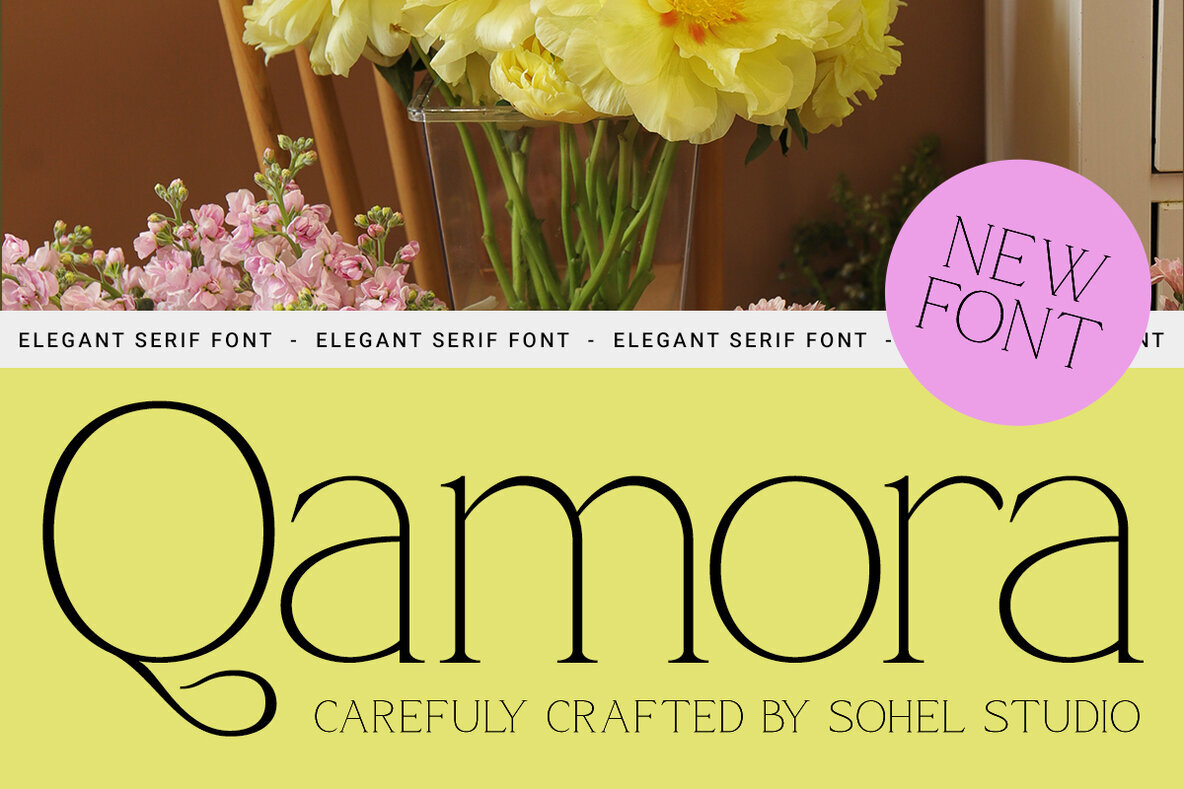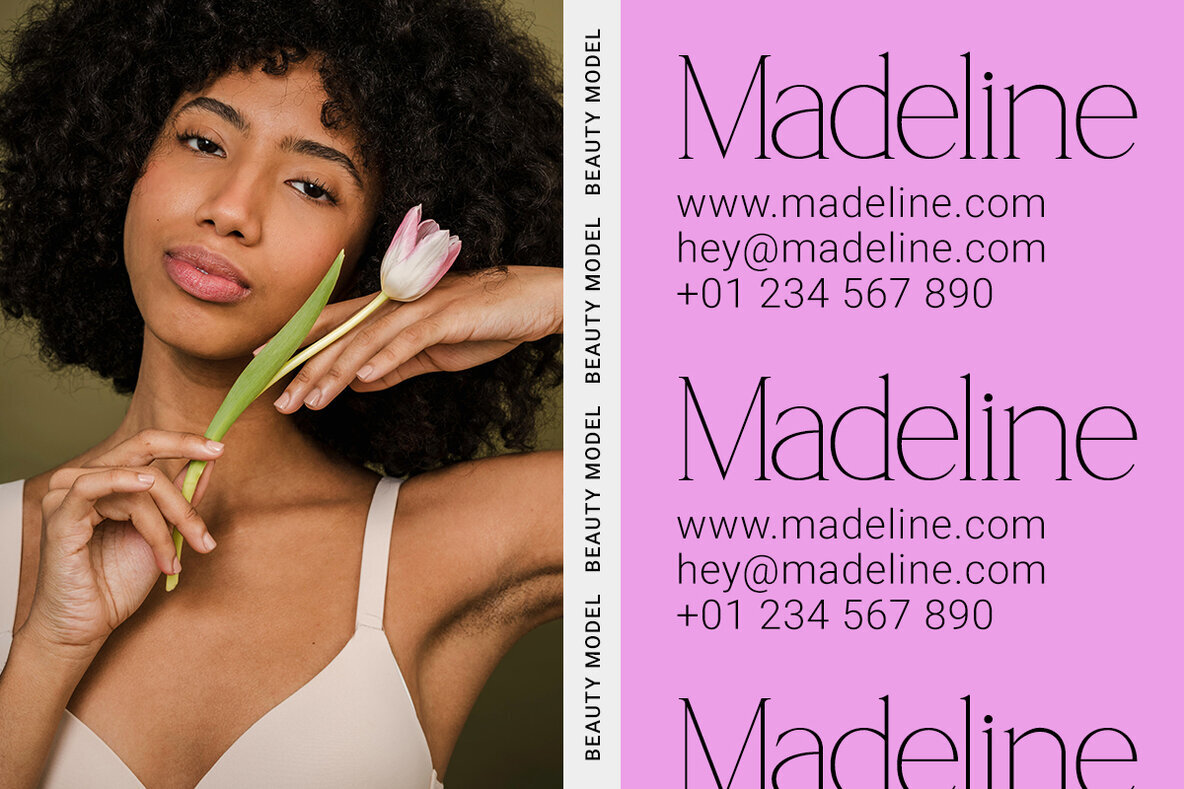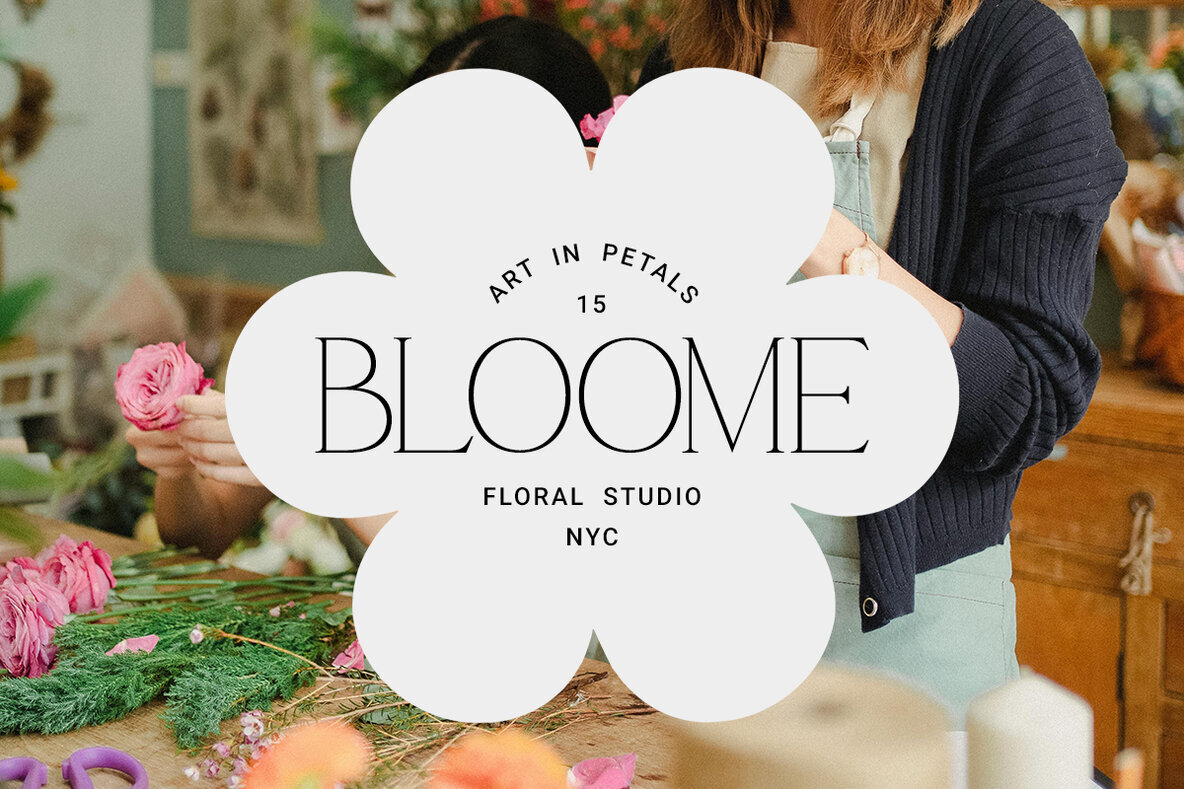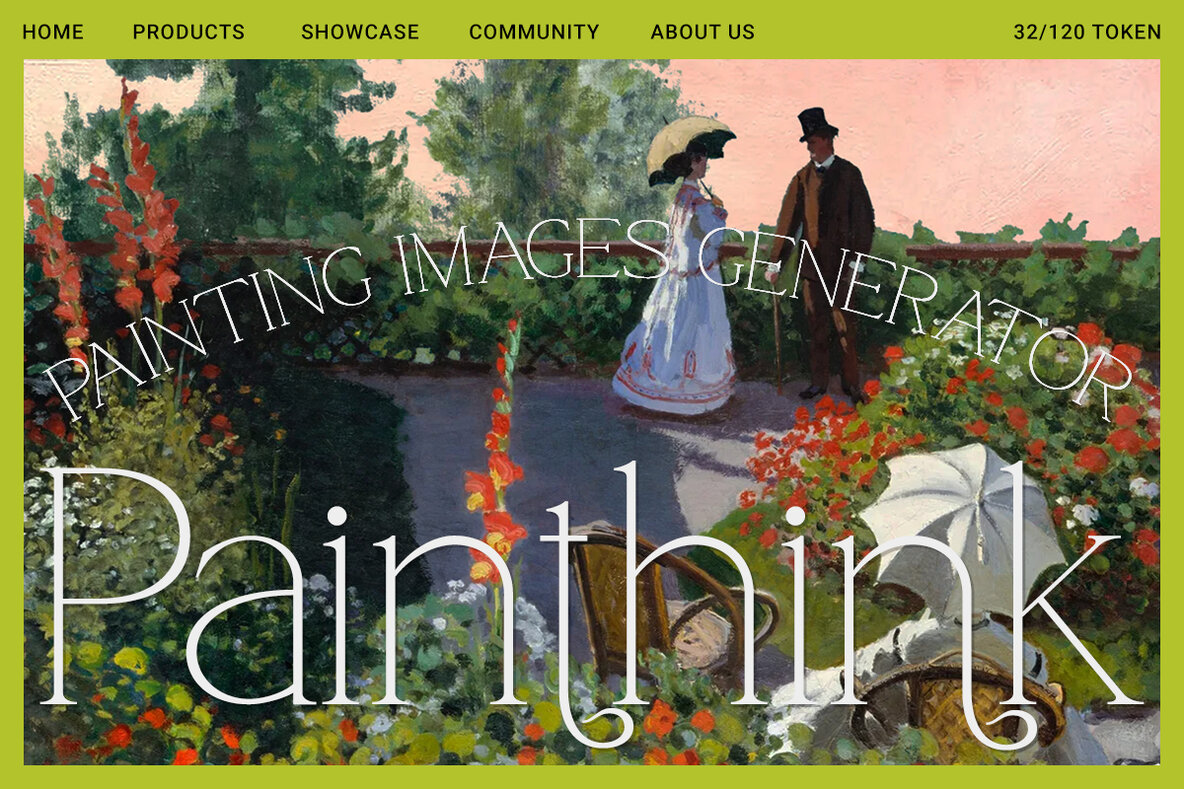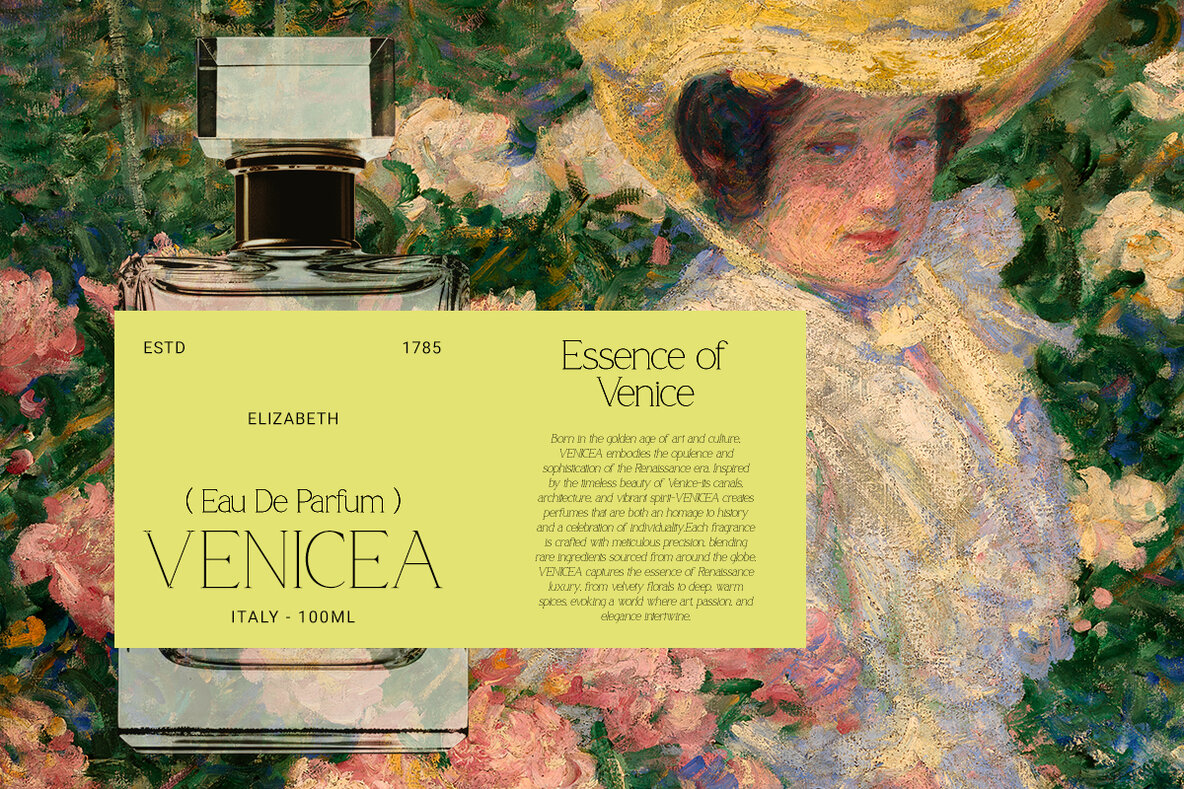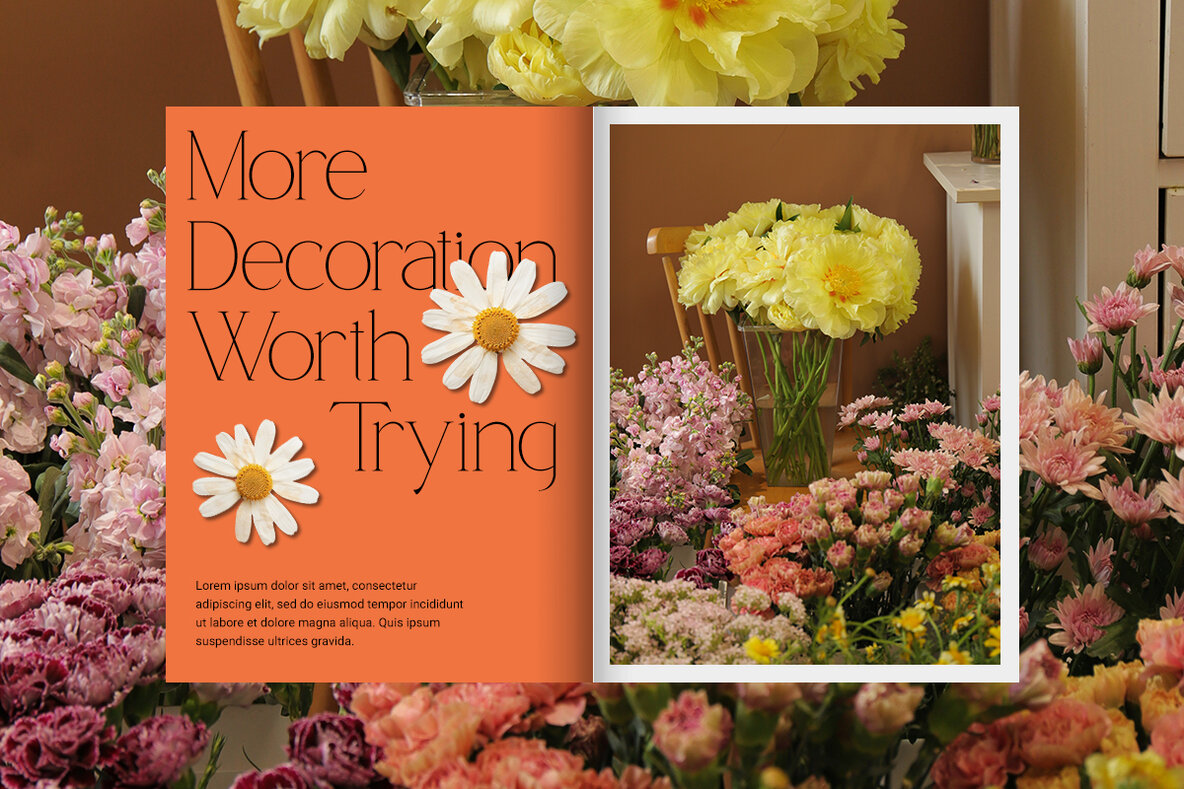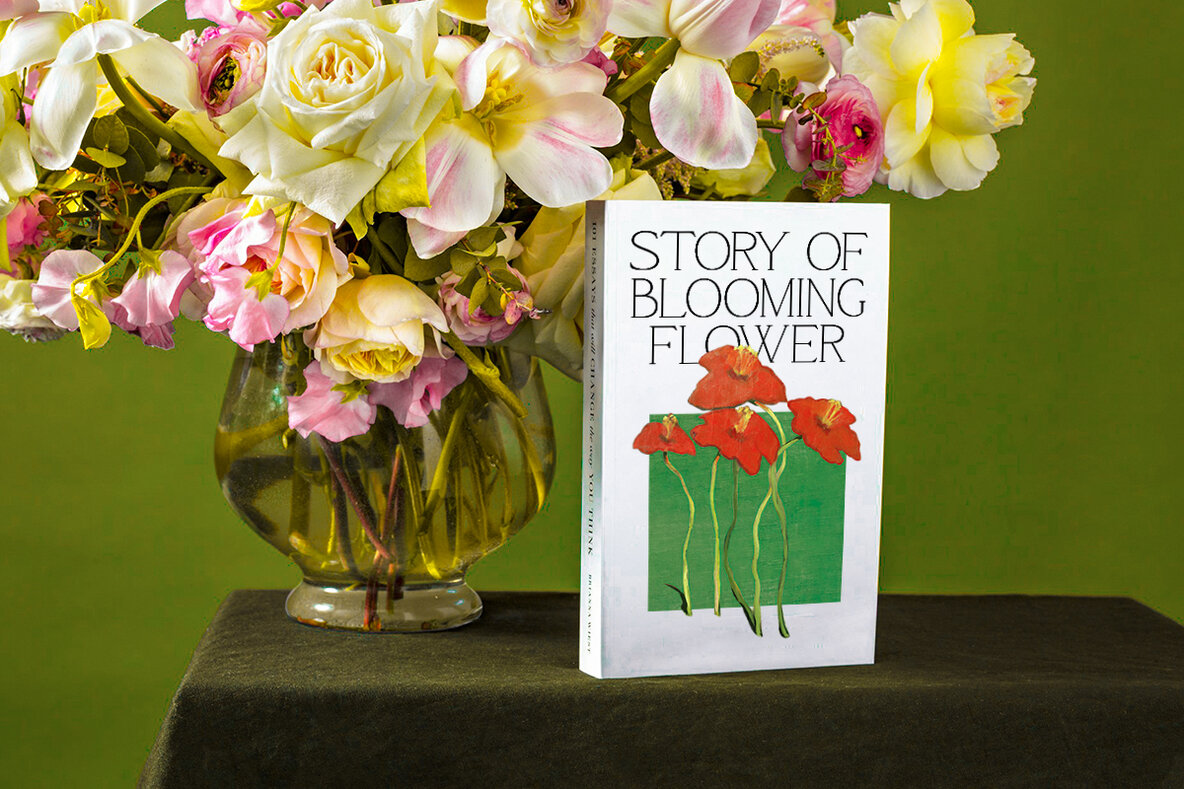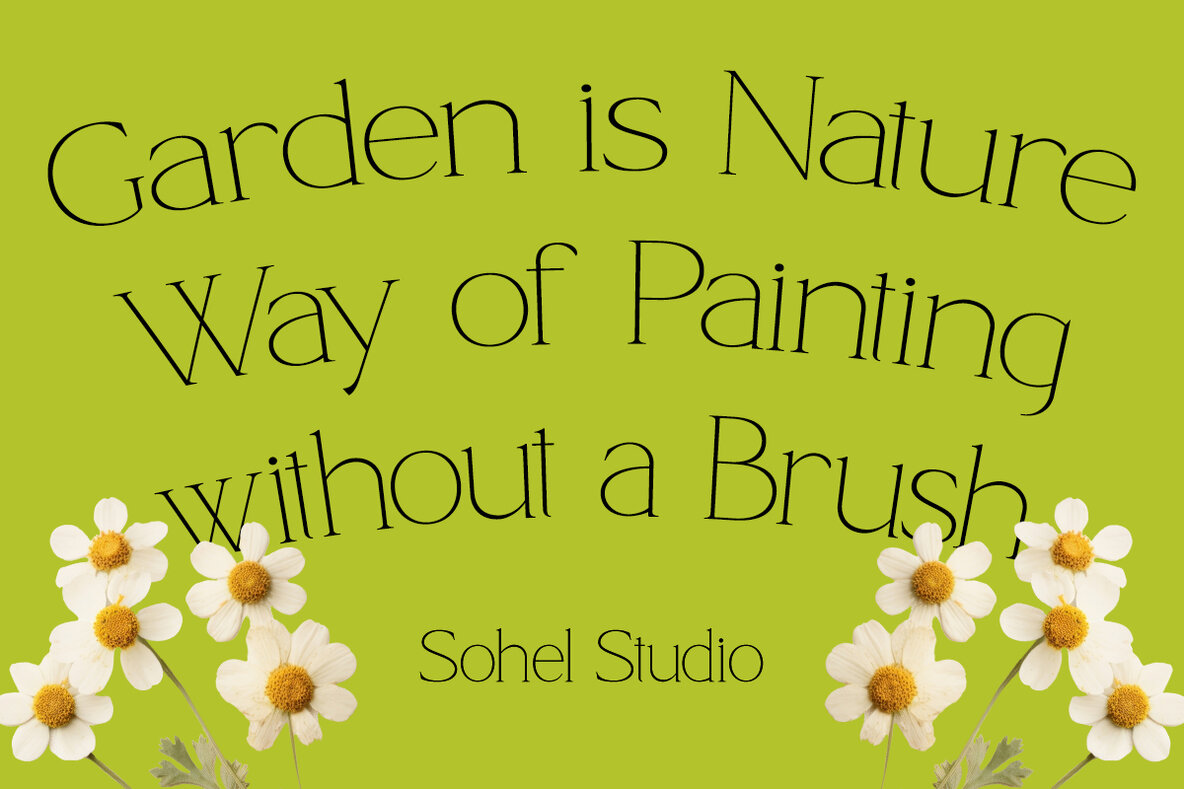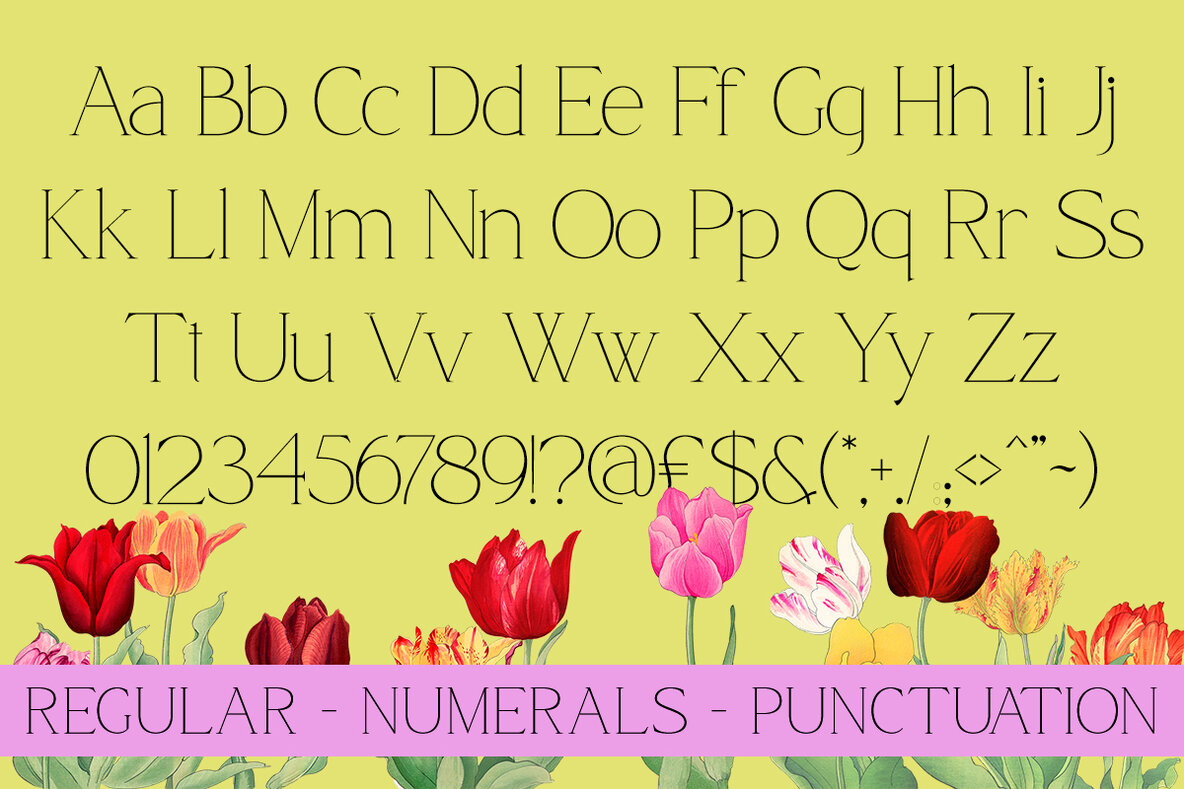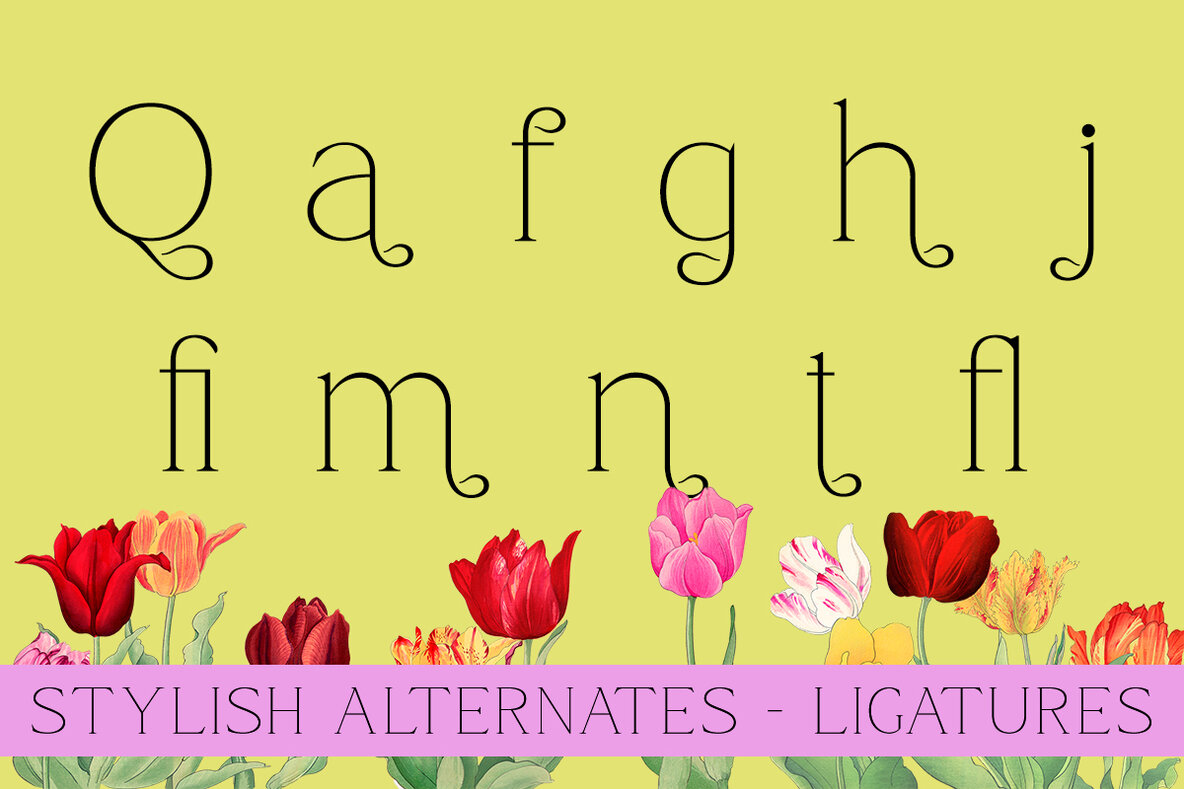
Qamora is a serif typeface that exudes quiet confidence through its precise design, where ultra-fine contrast meets distinct elegance. Its refined letterforms blend softness with structure, creating a contemporary and unmistakably feminine voice suitable for visual identities that embrace elegance. Qamora is ideal for high-end skincare, boutique fashion labels, and lifestyle brands, seamlessly merging minimalism with modern editorial aesthetics. Each letter in Qamora is crafted with intent. The extended stems and high-waist letterforms evoke tailored craftsmanship, reminiscent of modern fashion magazines. It creates a voice that is gentle yet leaves a lasting impression, offering nuanced suggestions rather than overt statements. For designers who seek a blend of lightness and direction, Qamora invites subtle storytelling into each project. This typeface transcends trends, ensuring your work endures beyond the fleeting nature of fashion.Qamora: Editorial Serif with Subtle Sophistication